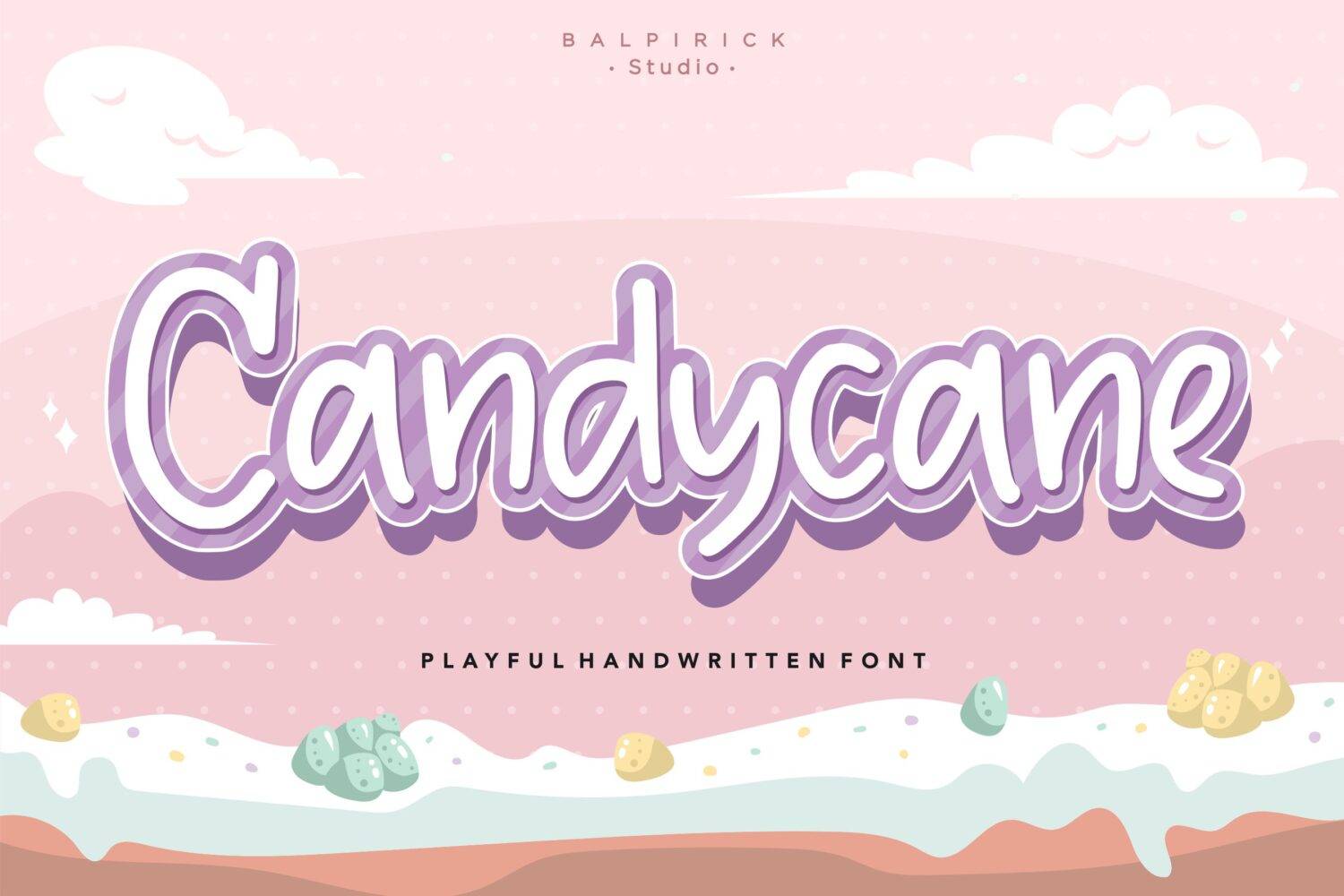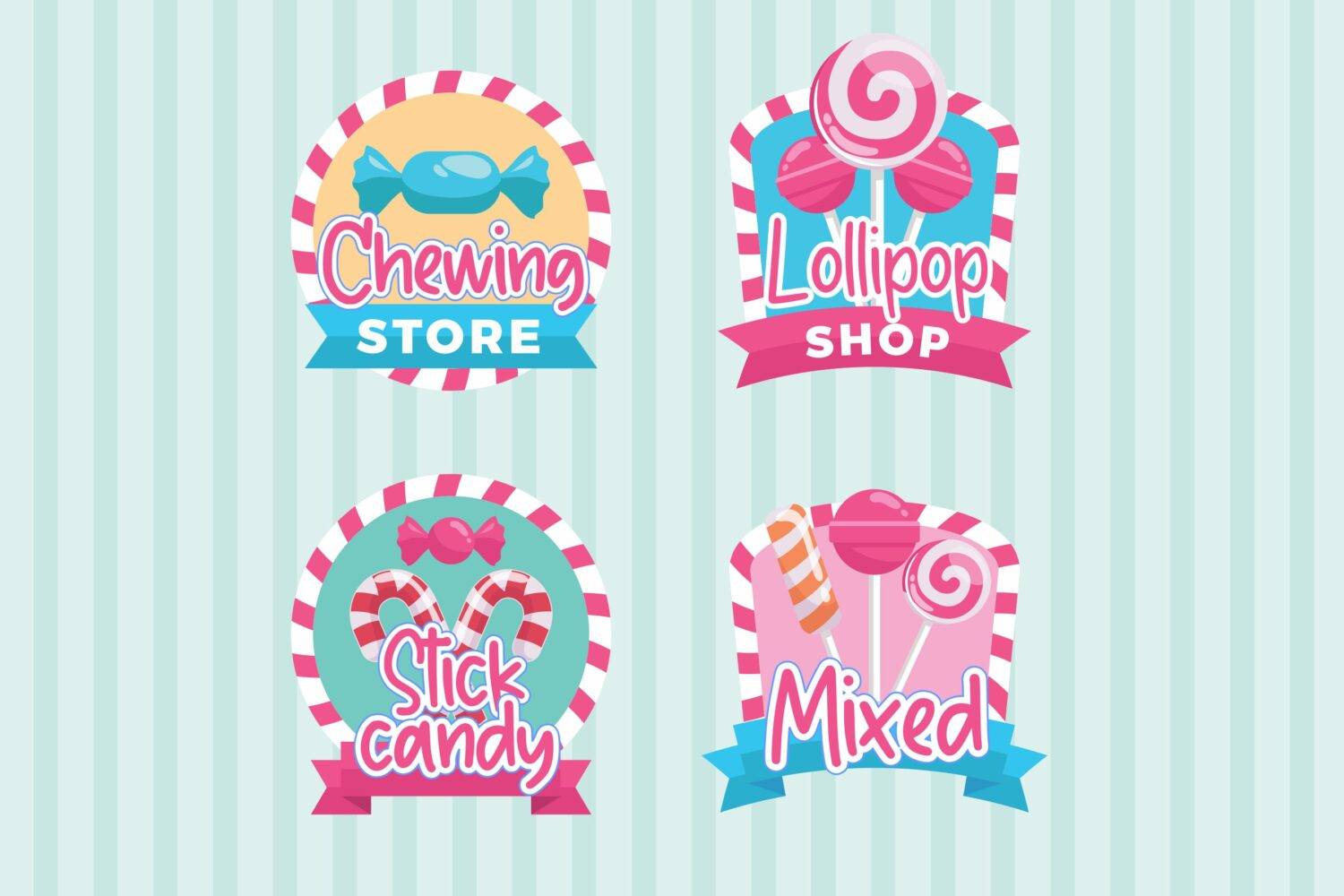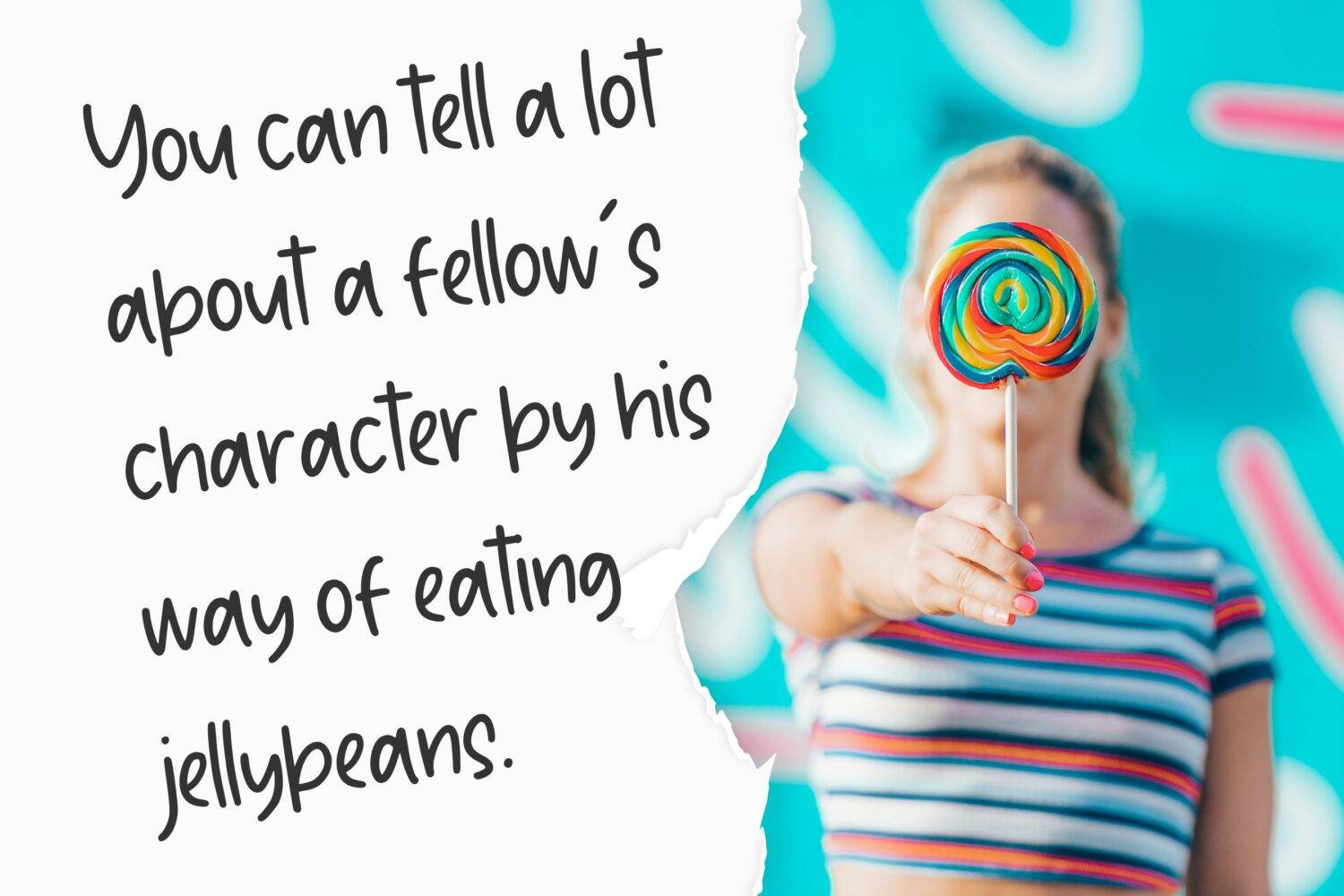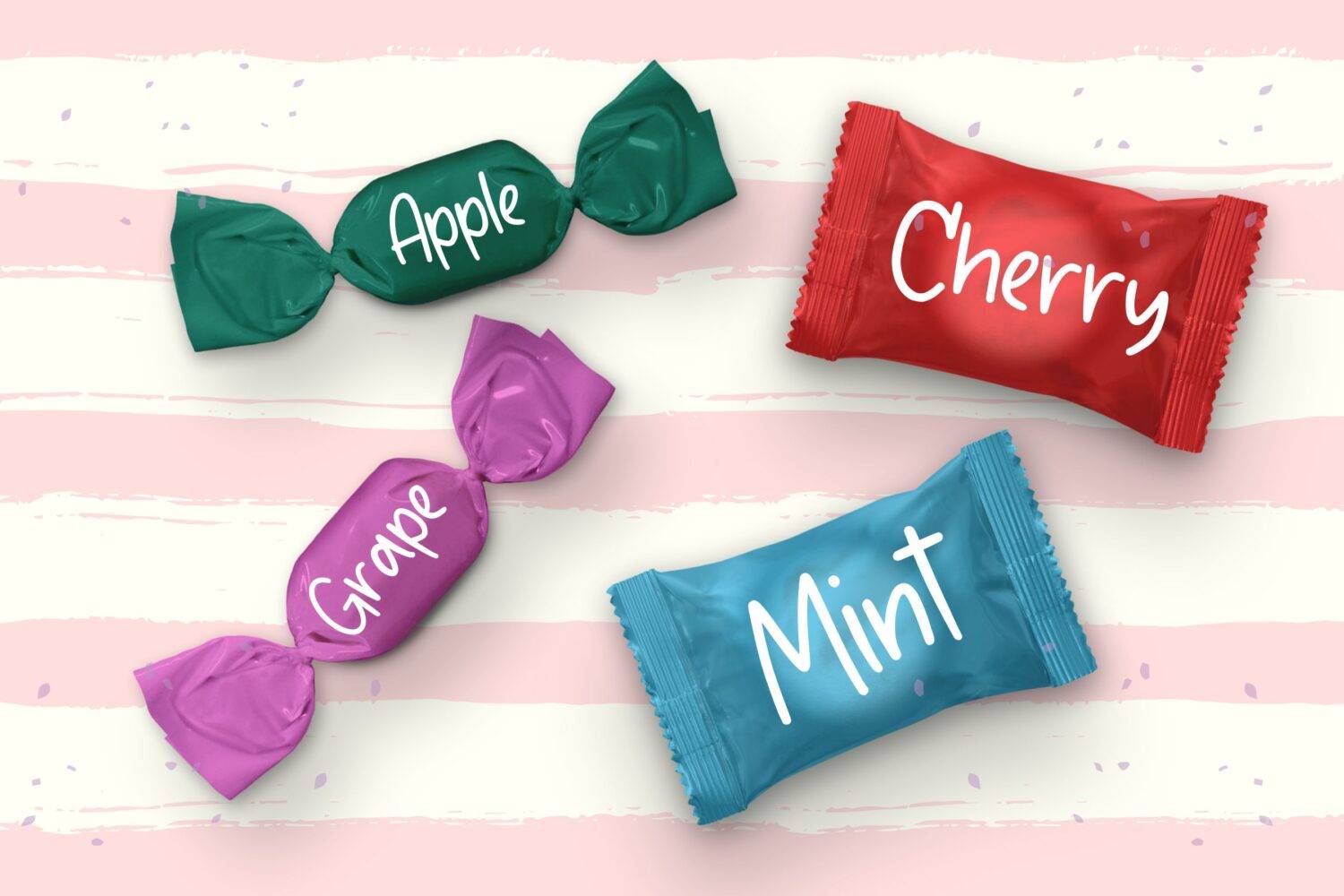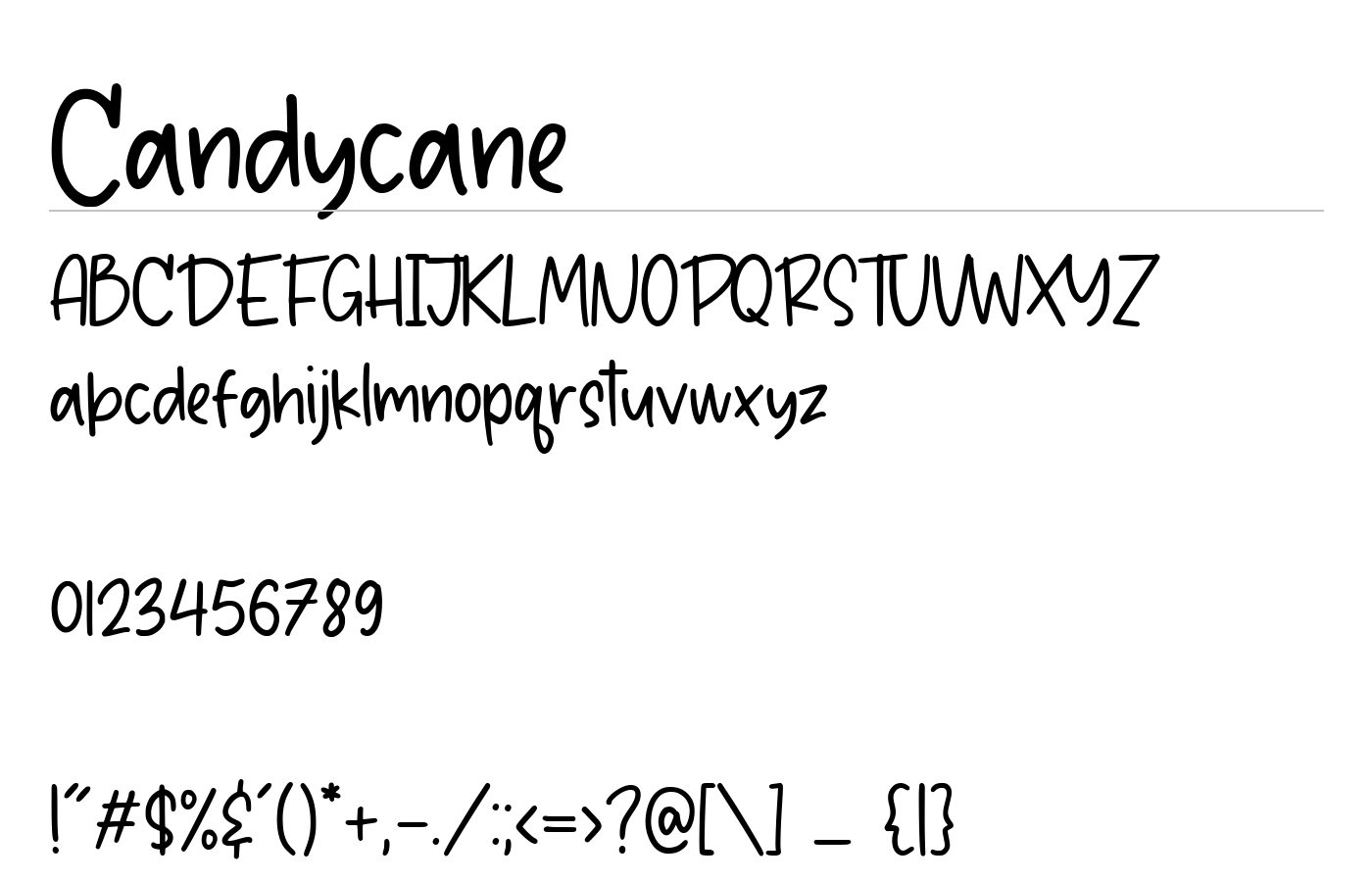
Candycane Playful Font is a casual, hand-drawn sans serif typeface with a friendly and whimsical vibe. Its slightly irregular strokes and rounded, informal letterforms make it perfect for projects that need a fun, approachable feel, such as children’s books, playful branding, or creative invitations. This font works best in headlines, logos, and playful designs where a personal, relaxed touch is desired.
Candycane Playful Font
About Candycane Playful Font
| Font family | Candycane Playful Font |
| Designer | Balpirick 2020 |